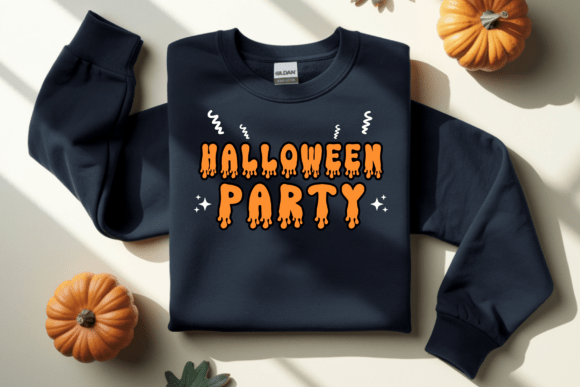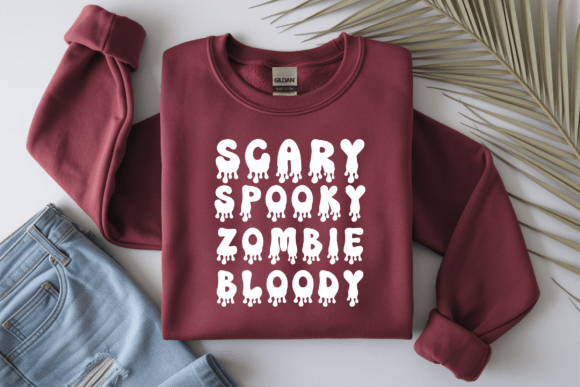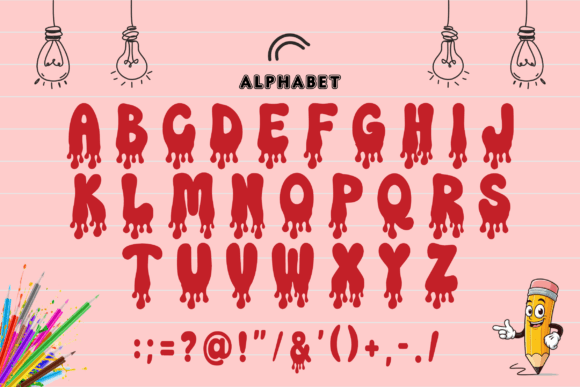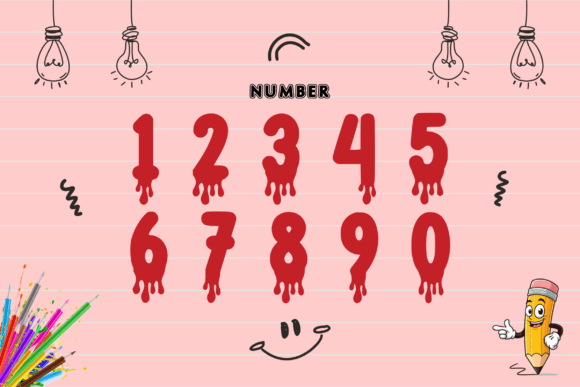
Unleash the Horror with Dripping Font: A Spooky Sensation
Have you ever been working on a design project, and suddenly, it feels like something’s missing? You’re trying to create a spooky atmosphere, but the text just doesn’t seem to fit. I recall a project where I was tasked with designing a Halloween-themed poster, and I struggled to find the perfect font. That’s when I stumbled upon “Dripping,” a captivating font that presents a unique dripping style. Every character boasts a haunting blood drop, providing an unforgettable and spooky visual appeal.
The Perfect Font for Creepy Creations
Dripping Font is a must-have for all Halloween-themed creations, spine-tingling horror movie titles, or eerie animations. Its versatility doesn’t stop there; it also fits perfectly on sublimated apparel like t-shirts and tote bags, or even on mugs, adding a touch of the macabre to everyday items. With this font, you can release your creative beasts and add a dash of horror to your designs.
An Honest Review: The Good and the Quirks
So, what makes Dripping Font so special? Let’s dive into the good stuff:
- ✨ Unique and eye-catching design with a haunting blood drop effect
- ✅ Perfect for Halloween-themed creations, horror movie titles, and eerie animations
- ✅ Works well on sublimated apparel, mugs, and other everyday items
- ✅ Easy to use and pairs well with a variety of design software
Now, let’s talk about some minor quirks:
- 🤔 Some characters may appear a bit distorted when used in certain sizes or combinations
- ⚠️ Limited to a single style, but the effect is so striking that you might not need more!
The Story Behind Dripping Font
The inspiration behind Dripping Font comes from a passion for horror and the supernatural. The designer aimed to create a font that would evoke a sense of eeriness and foreboding, perfect for those who love to dabble in the dark side of design. Whether it’s for a Halloween party invitation or a horror movie title, Dripping Font is sure to cast a spell on your audience.
| Is Dripping Font suitable for body text? | While Dripping Font is eye-catching, it’s best used for headlines and titles due to its unique design. |